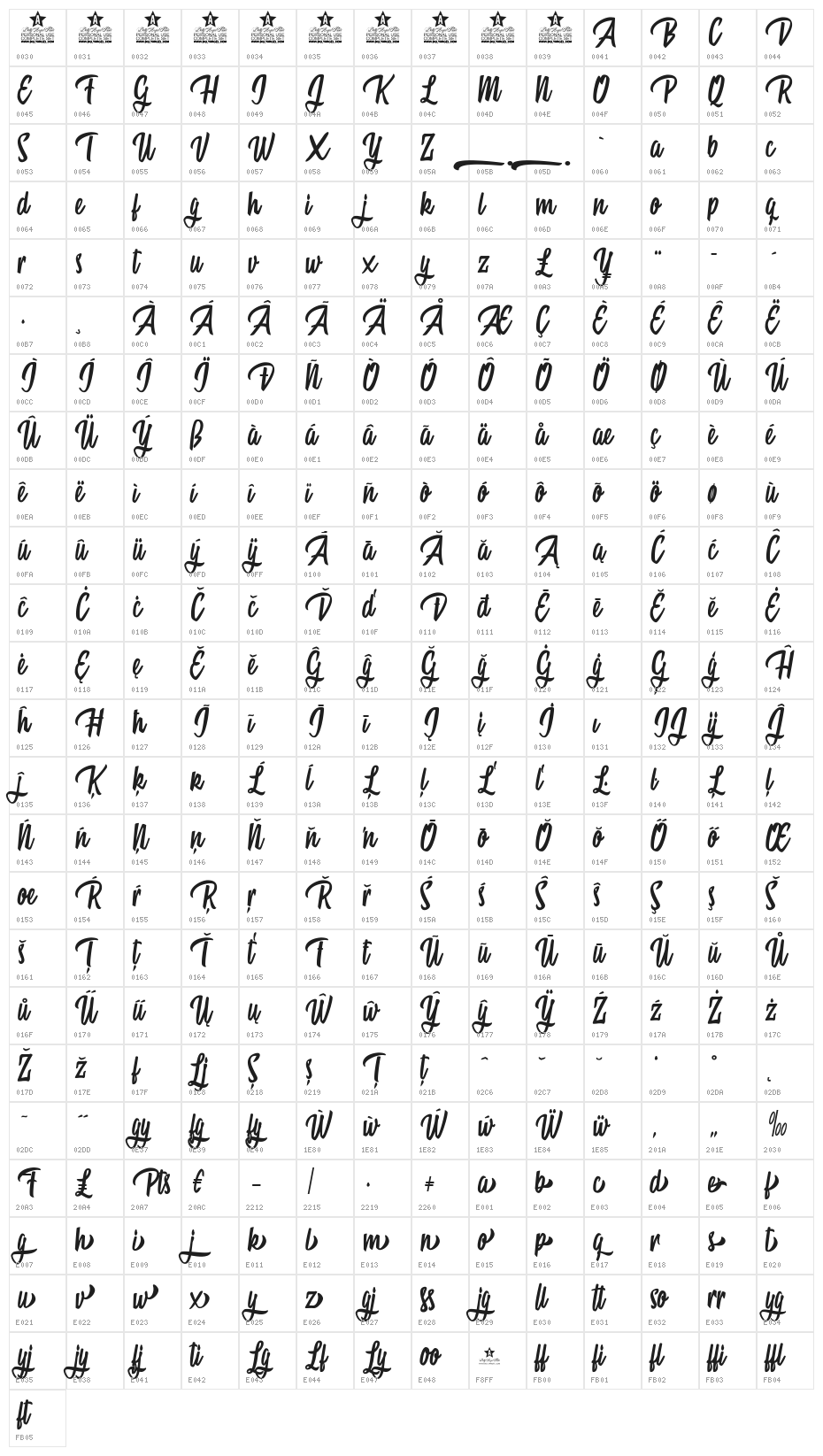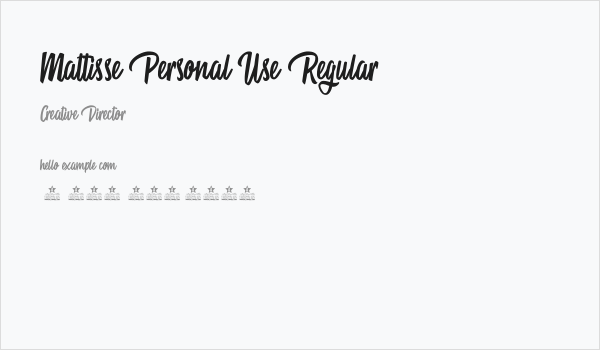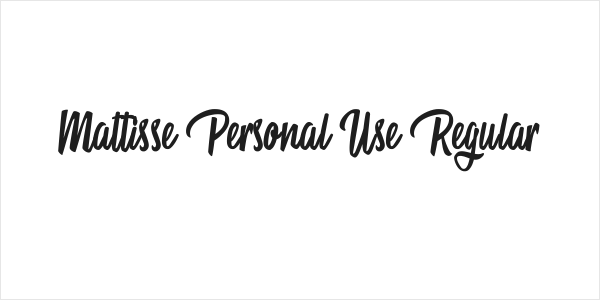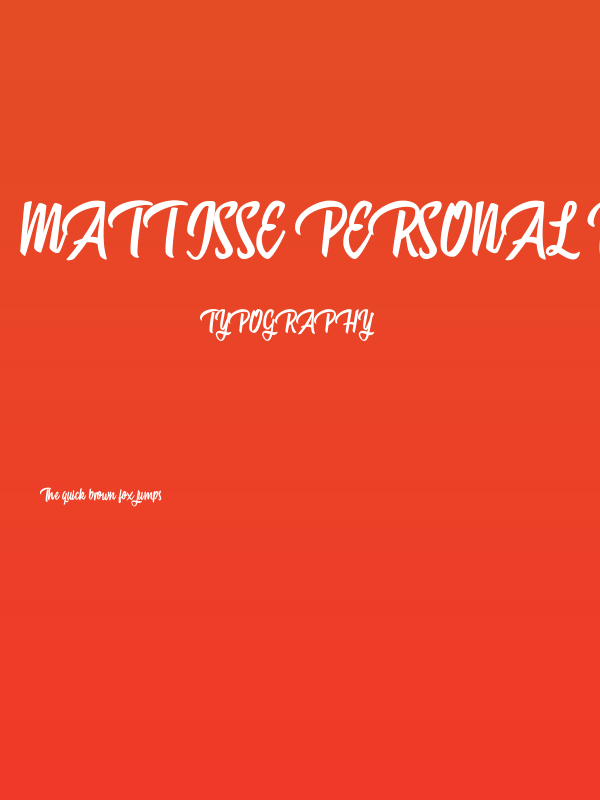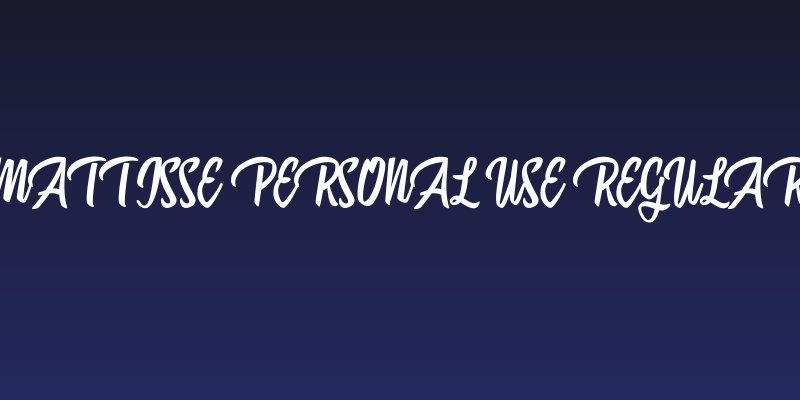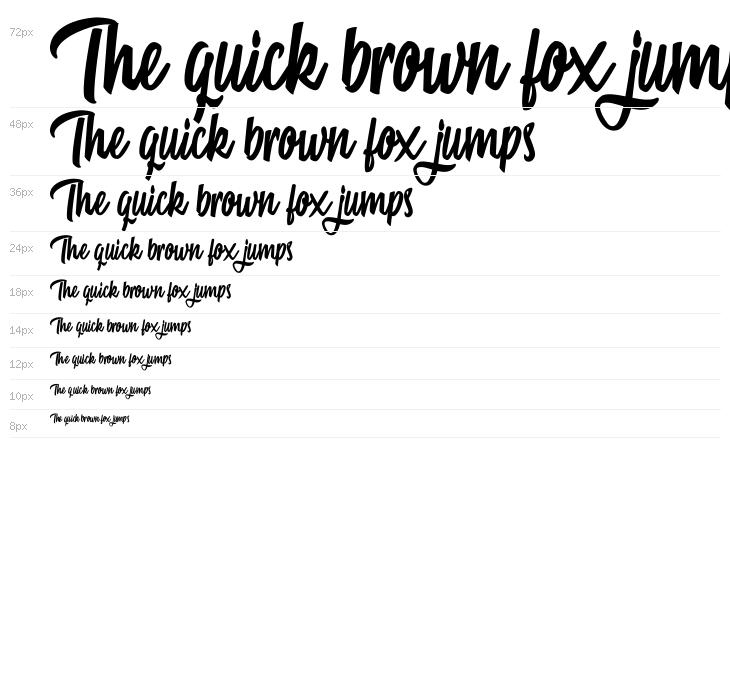
Mattisse Personal Use Regular Font
Mattisse Personal Use Regular Description
This font features a bold, flowing script style that exudes elegance and sophistication. The characters are intricately designed with smooth curves and a consistent stroke width, giving it a cohesive and polished appearance. The uppercase letters are particularly ornate, with some featuring unique flourishes that add a touch of flair. The lowercase letters maintain a harmonious balance with the uppercase, ensuring readability while retaining the font's decorative nature. This font is ideal for projects that require a personal touch, such as invitations, branding, or any design that seeks to convey a sense of elegance and style.
| Proposed Projects | Ideal for wedding invitations, branding, greeting cards, and elegant design projects. |